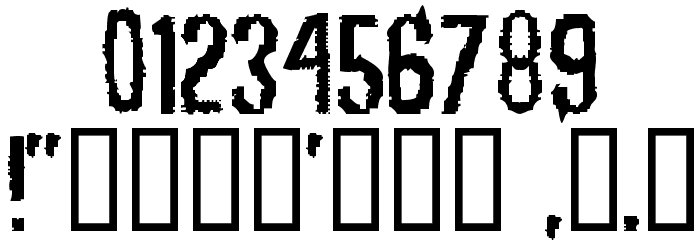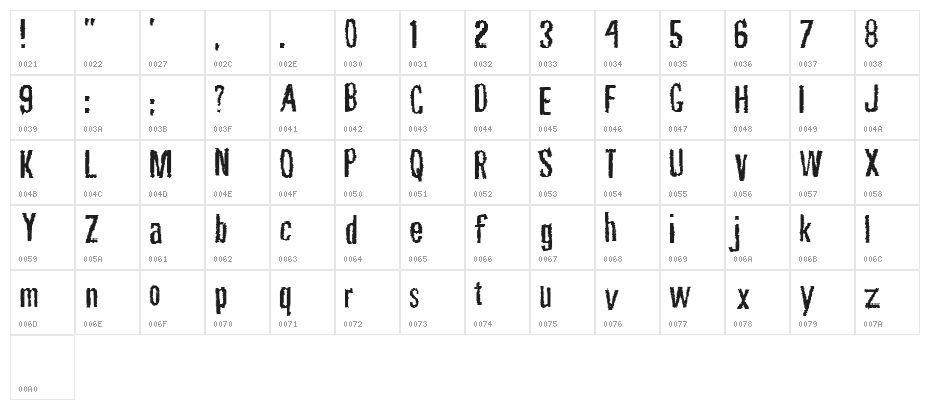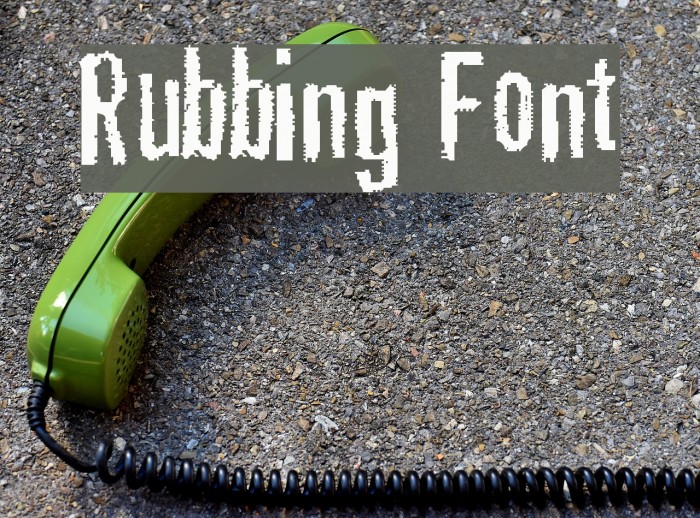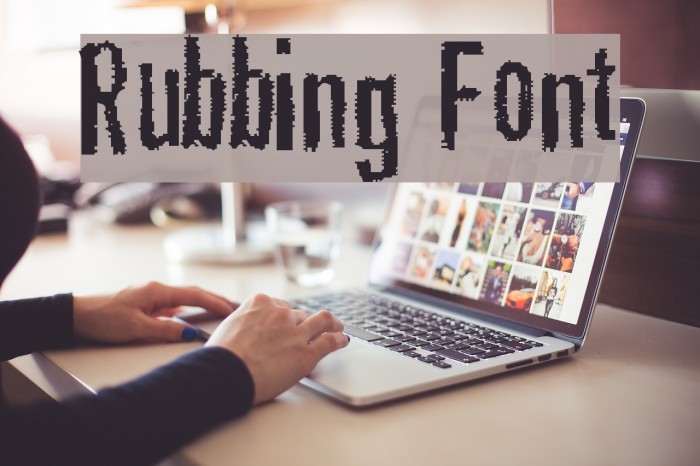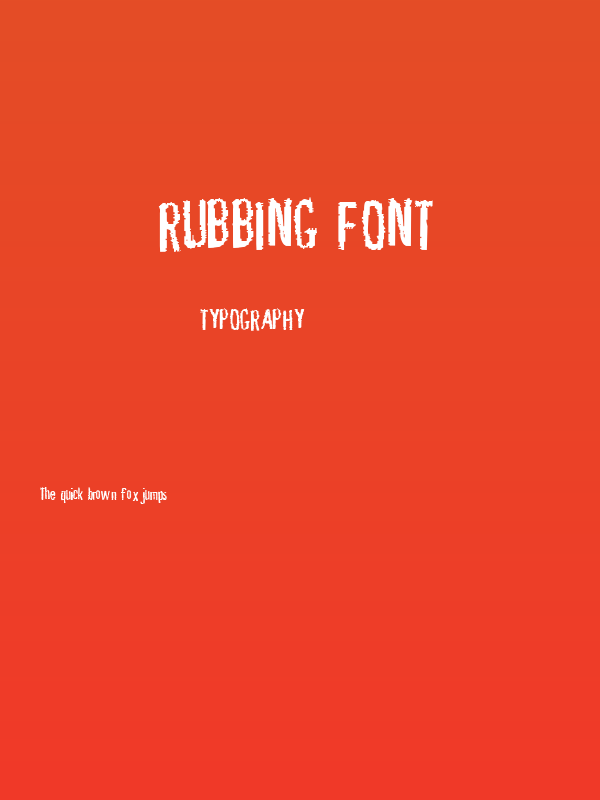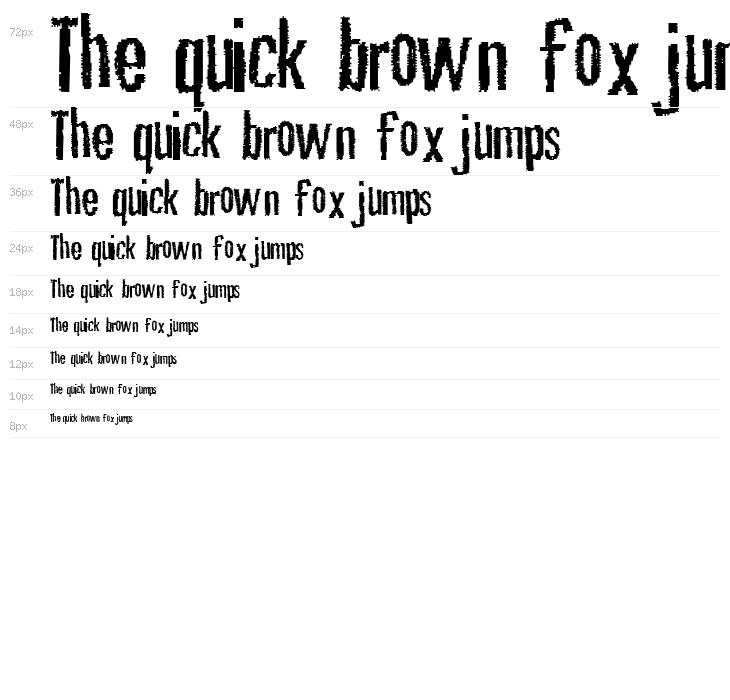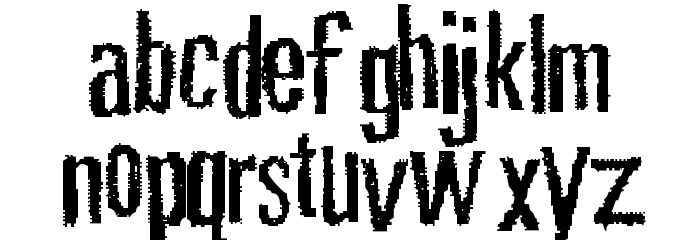
Rubbing Font Font
Rubbing Font Description
This font features a distressed, textured appearance reminiscent of rubbed or worn surfaces. The characters have an uneven, rough edge that gives them a vintage, handmade feel. The uppercase and lowercase letters maintain a consistent height, while the numbers and special characters follow the same rugged style. The font's unique texture makes it stand out, adding a tactile quality to any design. It's perfect for projects that require a touch of nostalgia or a handcrafted look, such as posters, album covers, or branding materials that aim to evoke a sense of history or authenticity.
| Proposed Projects | Ideal for posters, album covers, branding materials, and designs needing a nostalgic or handcrafted touch. |